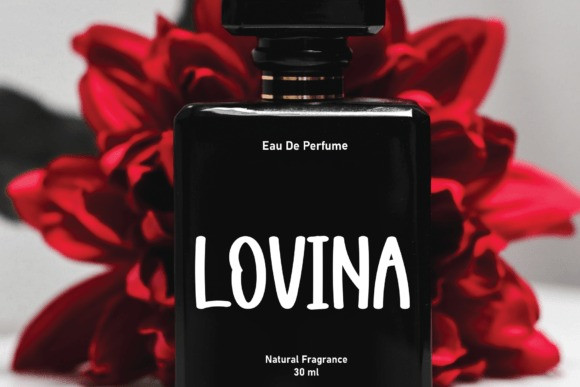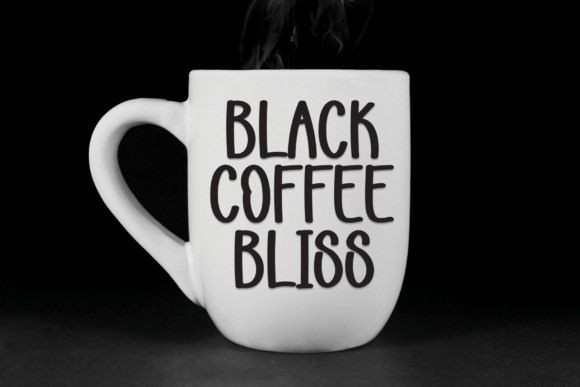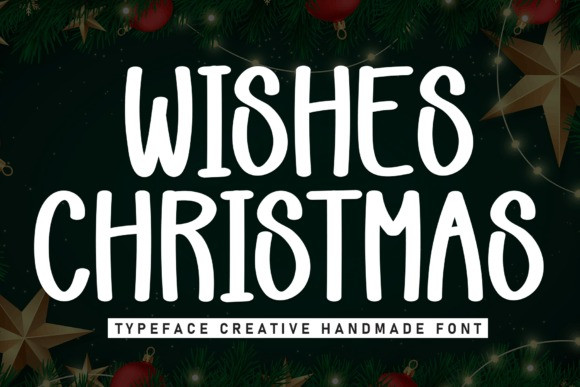
Wishes Christmas Font
Wishes Christmas Font is a sweet and cursive handwritten font. This gentle font will look gorgeous on a variety of design ideas. It will add a joyful and romantic touch to each of your projects! Perfectly fit for branding, logo, wedding things, greeting cards, fashion, lookbook, marketing promotion, and anytime you want to look fancy and elegant but still casual.